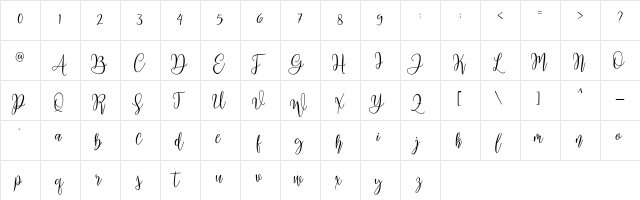
Mariposa Script Demo Regular
| Foundry | Ferdiansyah_LuthfyDuana_Luckysign |
| Designer | Ferdiansyah_LuthfyDuana_Luckysign |
Mariposa Script Demo brings a calligraphic fluidity to the page — its connecting strokes and expressive curves give it an unmistakably human quality.